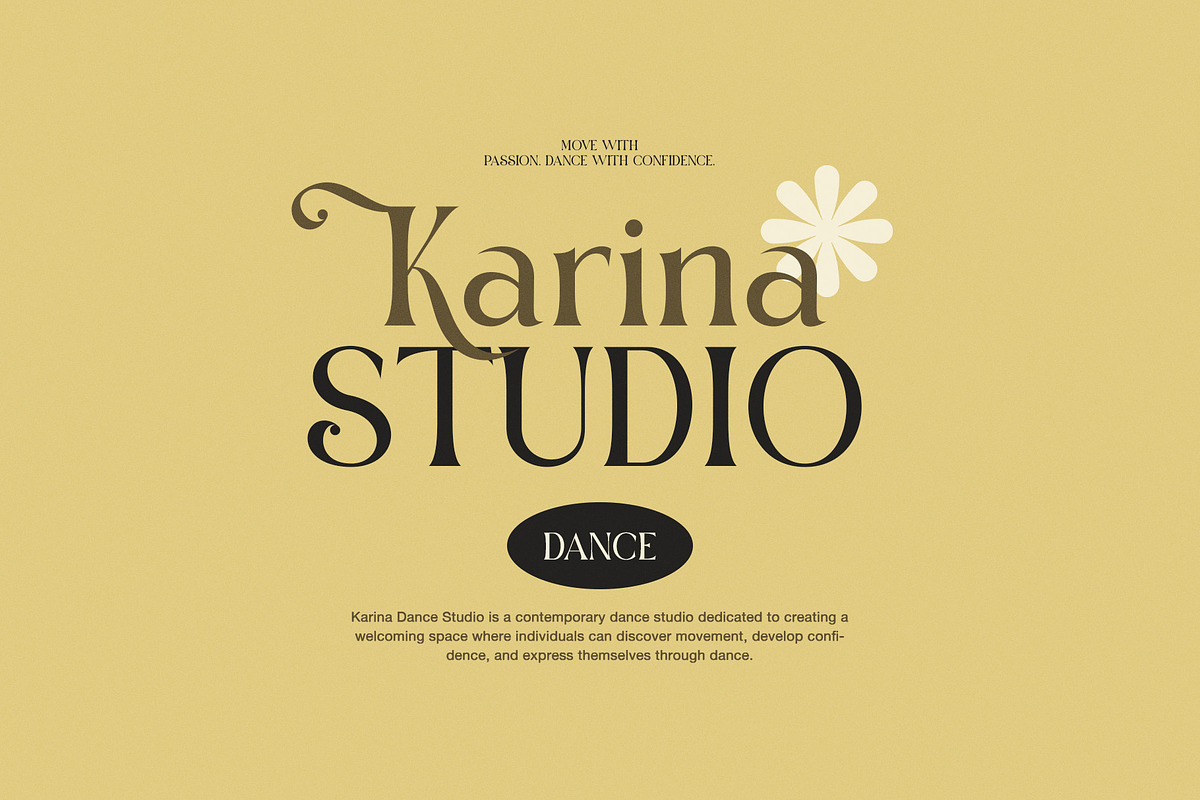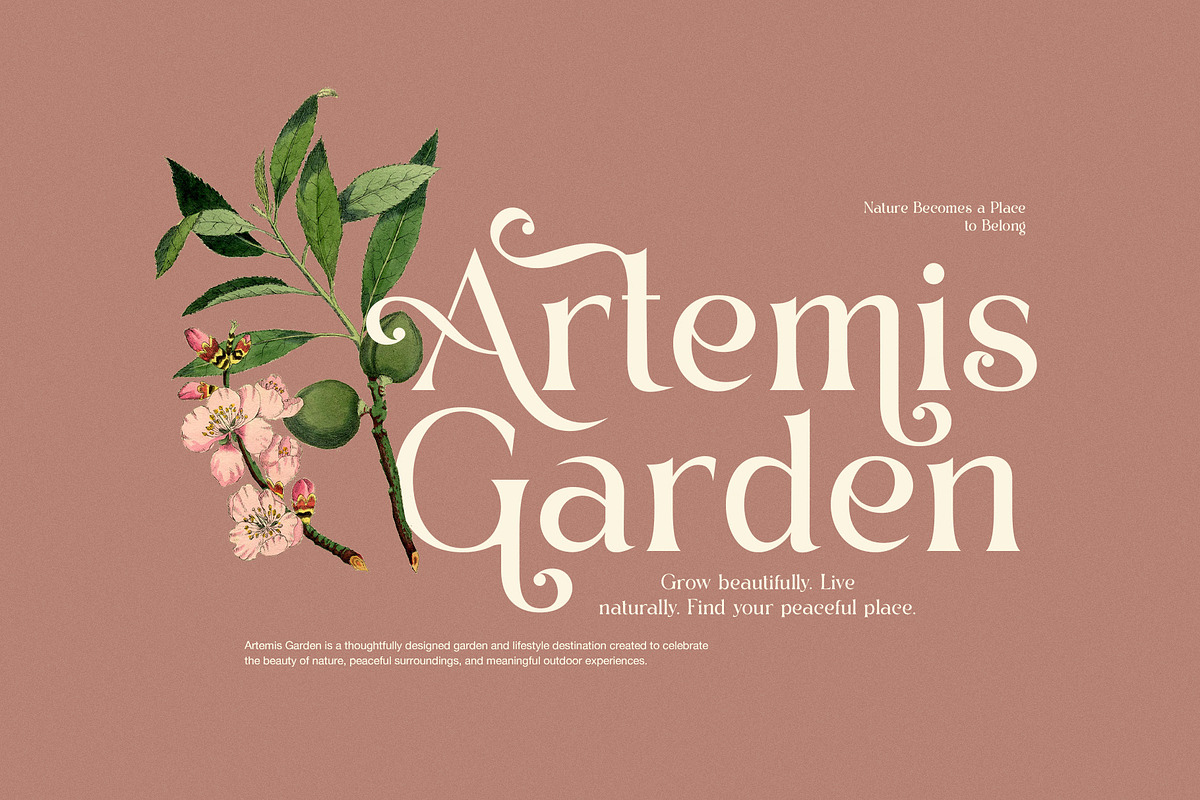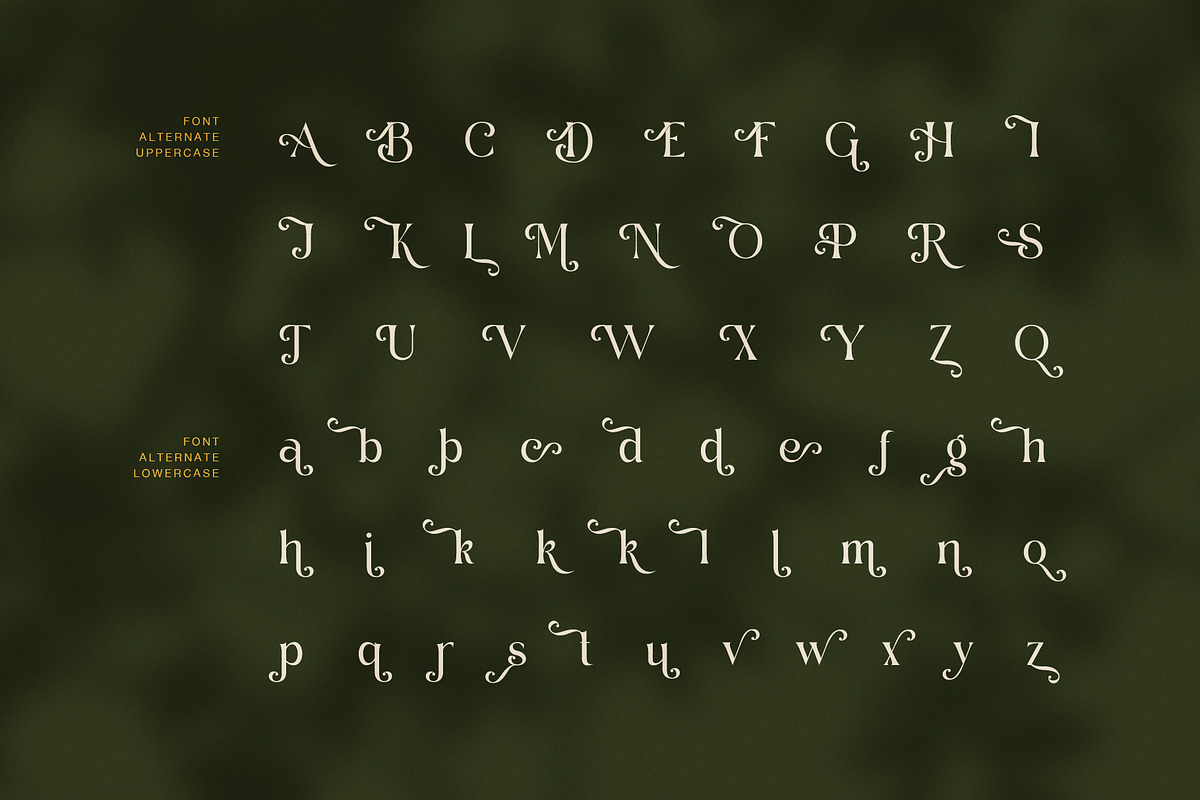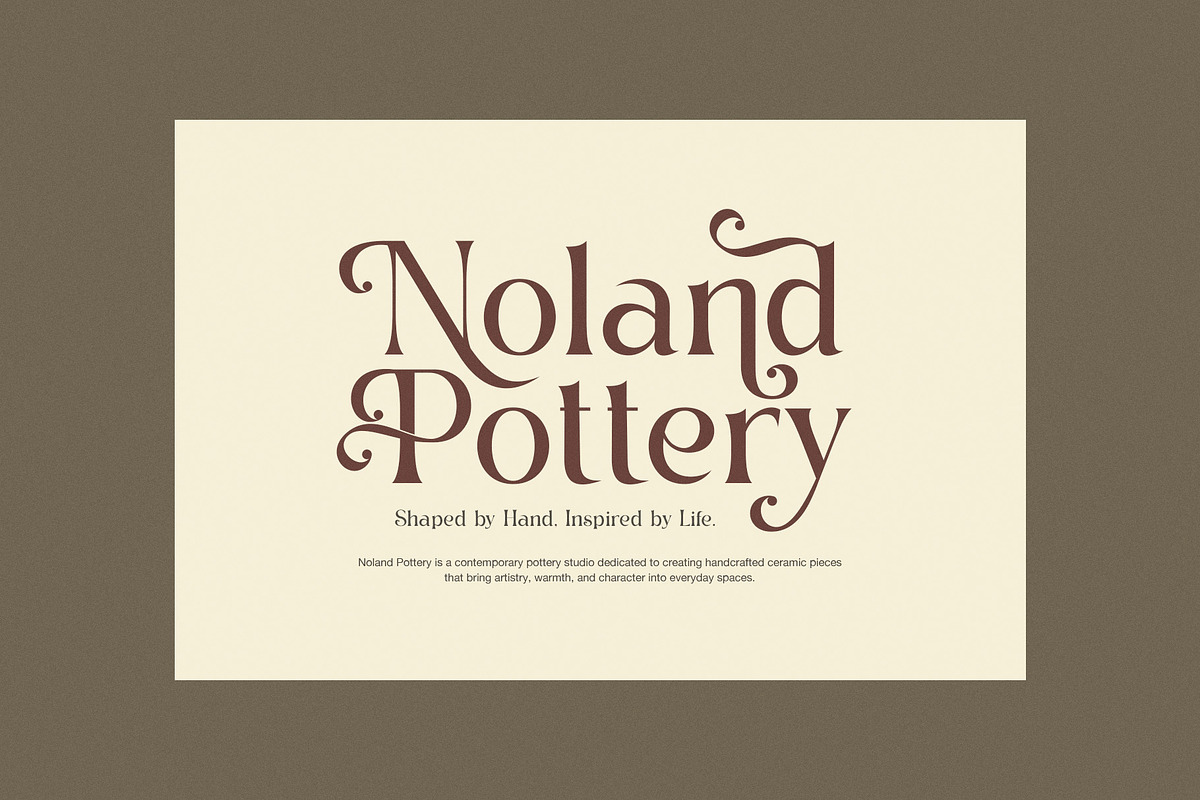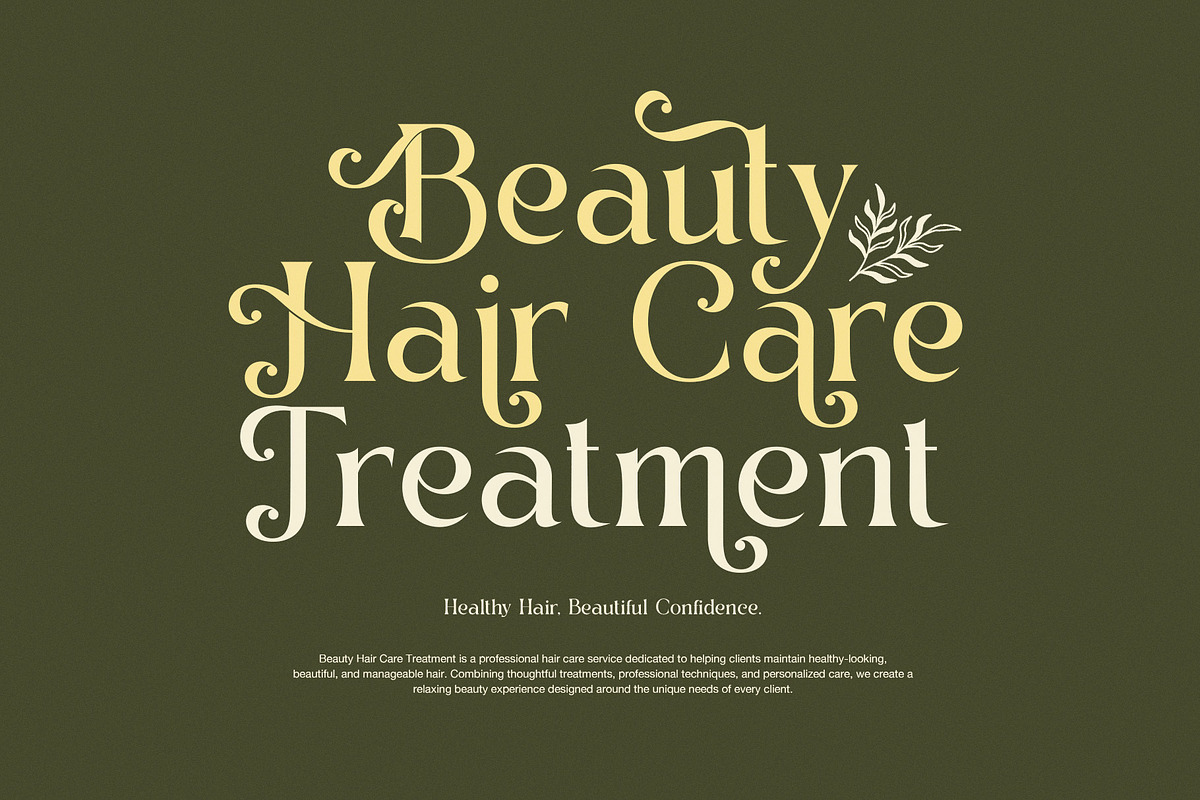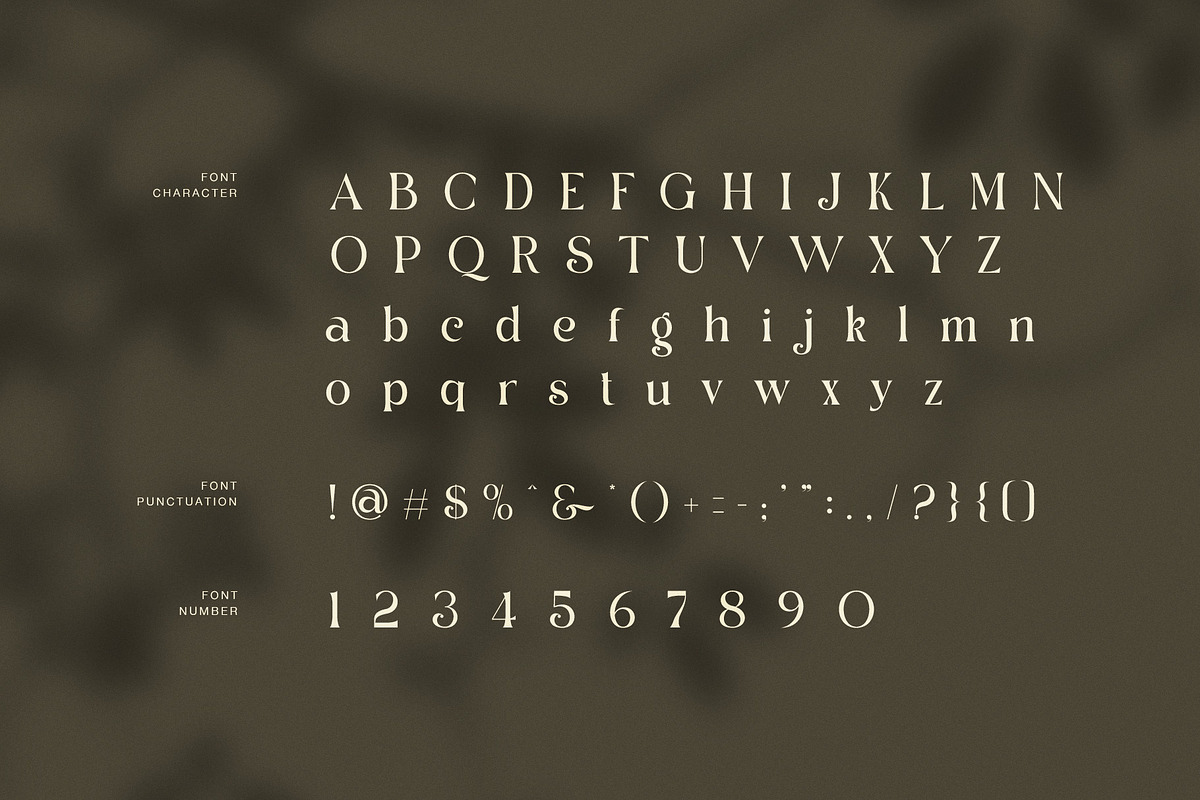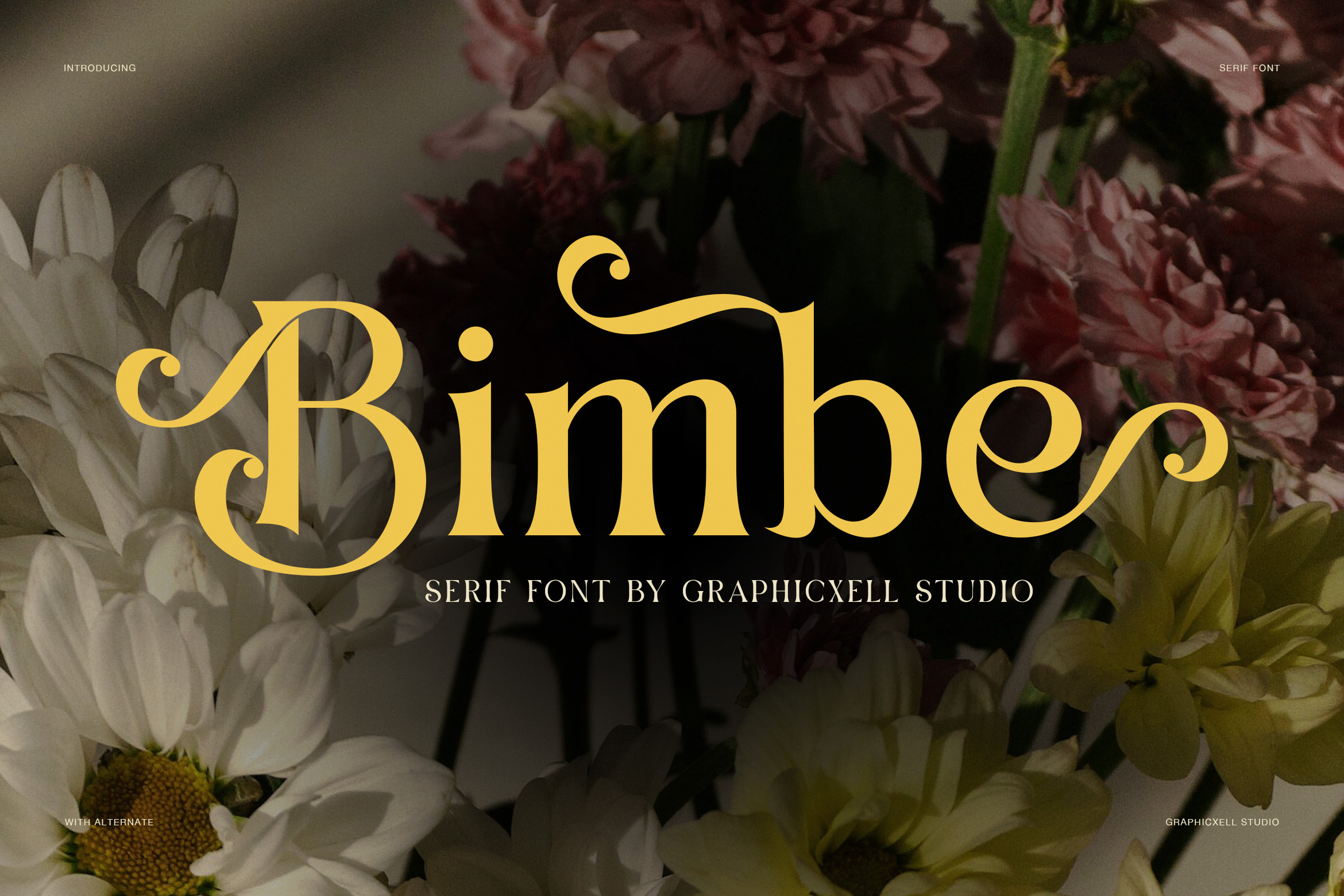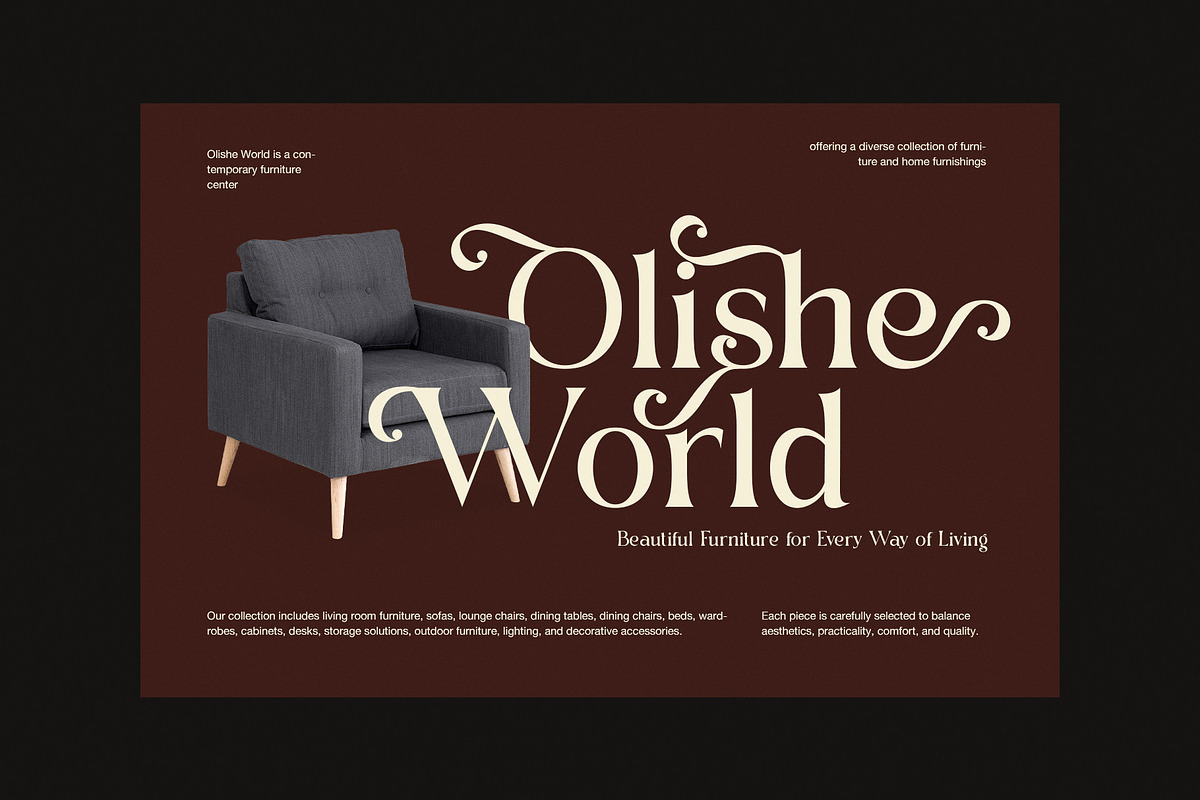
Bimbe Elegant Serif Font
Bimbe is an elegant decorative serif font with a romantic, expressive character. Its classic serif structure combines bold forms with graceful curves, while ornamental swashes add a distinctive touch to selected letters. As a result, Bimbe brings warmth and personality to brand names, headlines, and display typography.
Refined Serif Character
First, the main alphabet has a strong presence and clear shapes. At the same time, its dramatic curves give the typeface a softer, more artistic feel. Several uppercase and lowercase alternates introduce curled terminals, flourishes, and decorative details. Therefore, designers can move between standard characters and ornamental forms to create a personal visual style.
Moreover, Bimbe works especially well when typography becomes the focus of a design. Its decorative details suit logos, packaging, invitations, posters, and social media graphics. In addition, the balanced serif forms help the font stay clear when you use large words or short phrases.
Perfect for Creative Branding
For example, use Bimbe for:
Beauty and hair care branding
Floral and garden businesses
Boutique and fashion logos
Pottery and handmade brands
Wedding invitations and stationery
Restaurant and lifestyle identities
Product packaging and labels
Editorial titles and posters
Social media campaigns
Likewise, the font adapts well to different moods. For a refined look, use the standard characters with generous spacing. However, you can add decorative alternates to key letters for a more expressive result. In addition, the swash details can make a short brand name feel distinctive without extra graphic elements.
Elegant Alternates for More Variety
Bimbe includes a broad selection of uppercase and lowercase alternate characters. These forms feature curled strokes, ornamental terminals, and flowing shapes that bring a custom lettering feel to your layouts. Meanwhile, the standard alphabet provides a cleaner option for supporting text and secondary headings.
Furthermore, the font combines classic serif influence with a decorative display style. Consequently, Bimbe fits projects that need elegance, charm, and a memorable visual voice. It can complement botanical artwork, product photography, textured backgrounds, and minimal layouts alike.
Finally, whether you create a beauty logo, floral identity, boutique packaging, wedding stationery, or an editorial headline, Bimbe gives your typography a graceful finish. Overall, its strong serif forms and expressive alternates make it a versatile choice for designers who want classic style with a decorative edge.